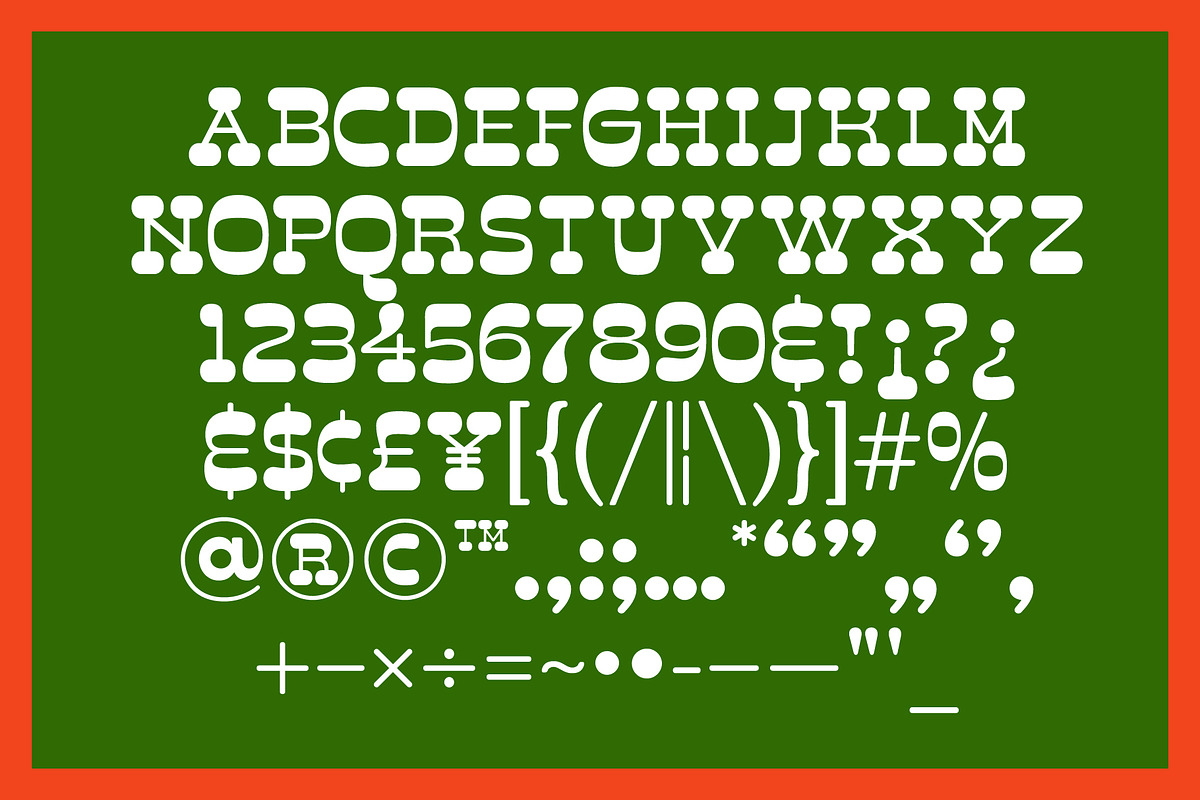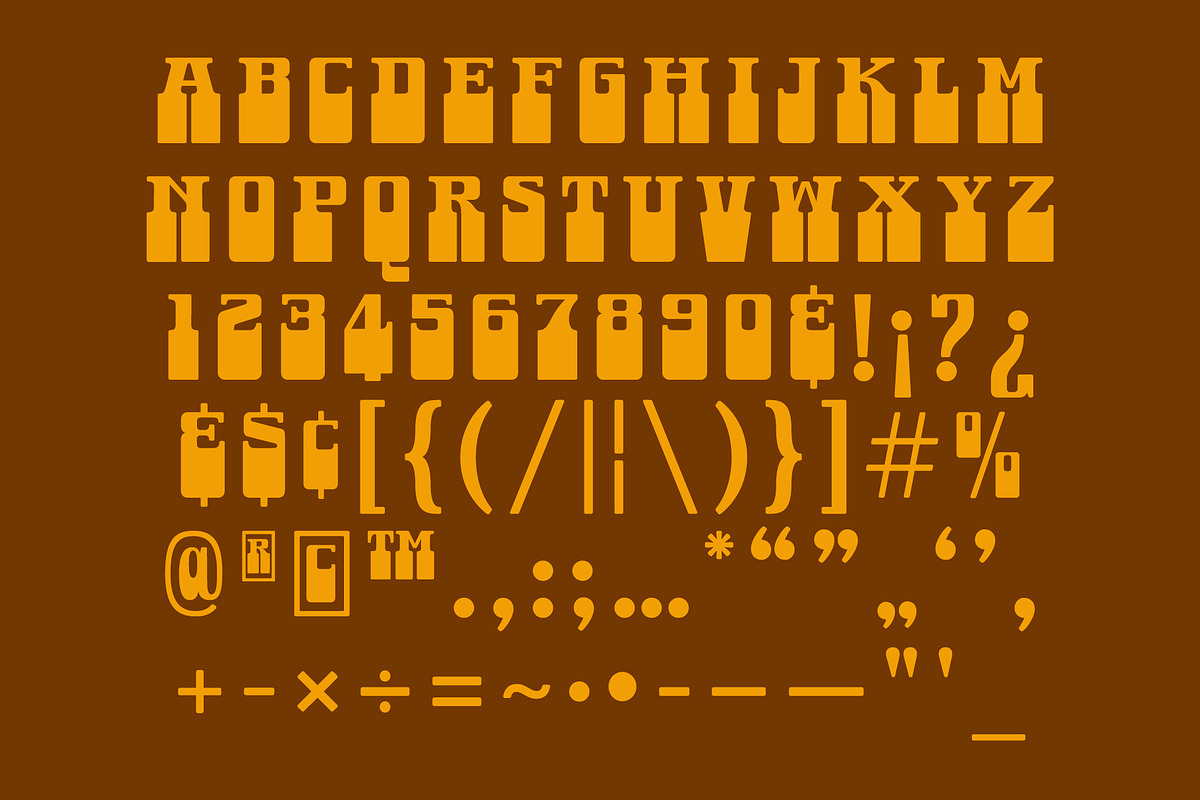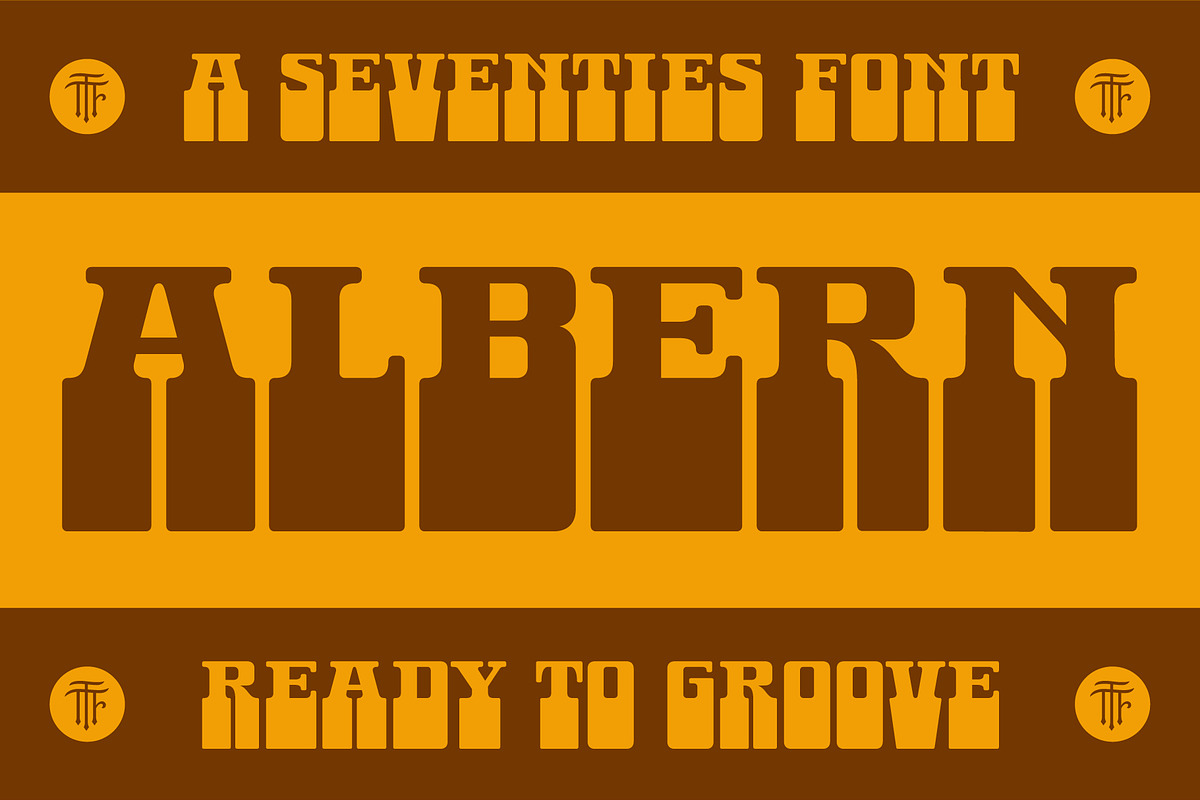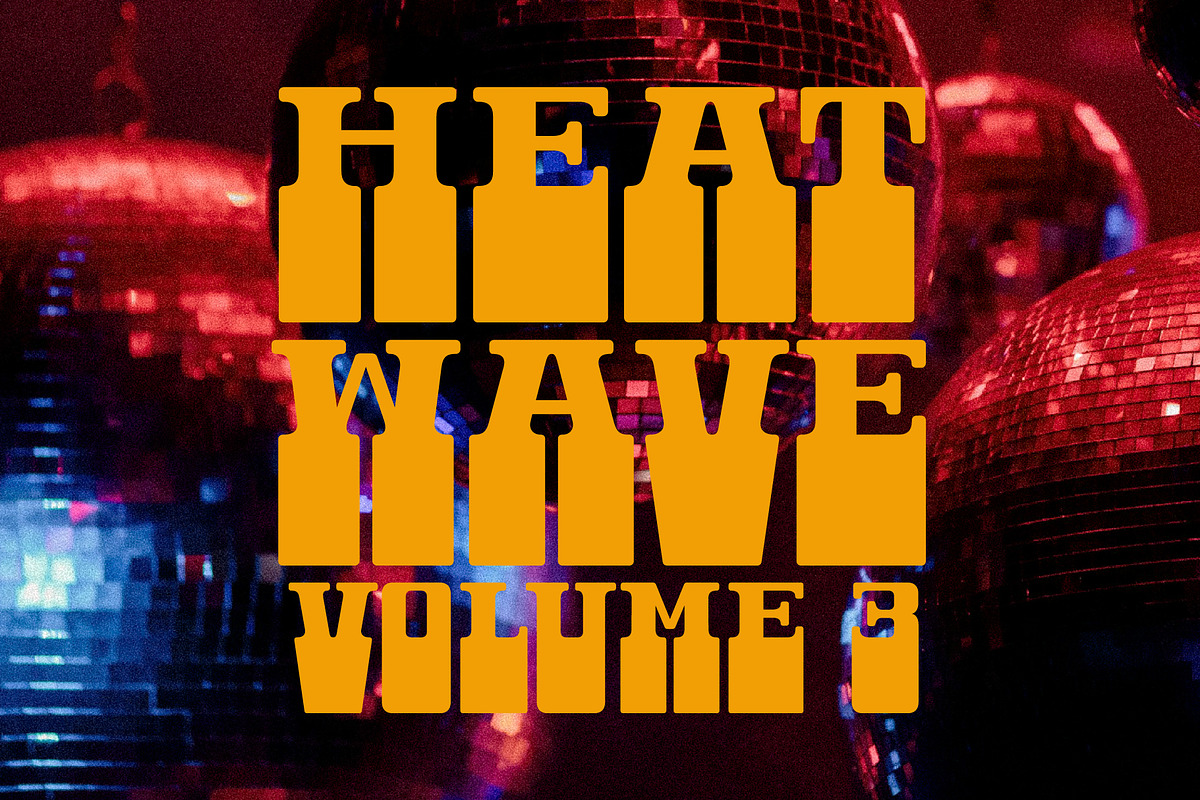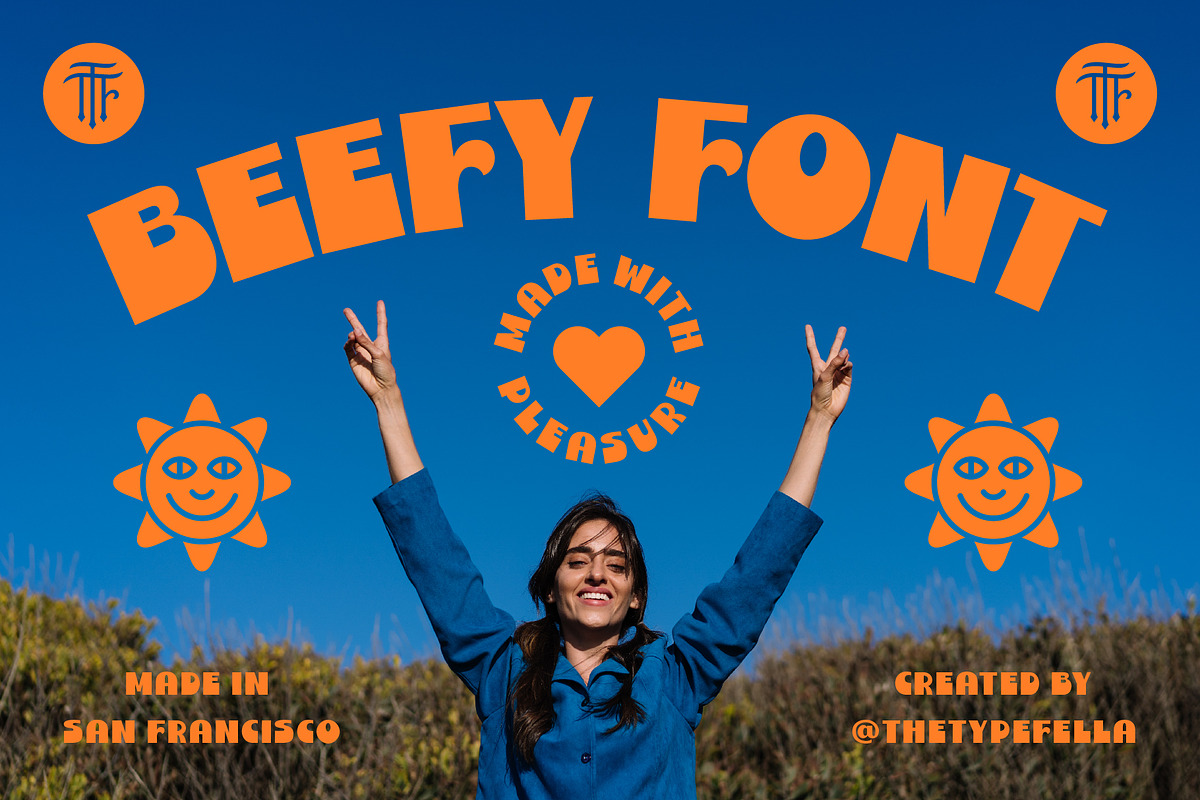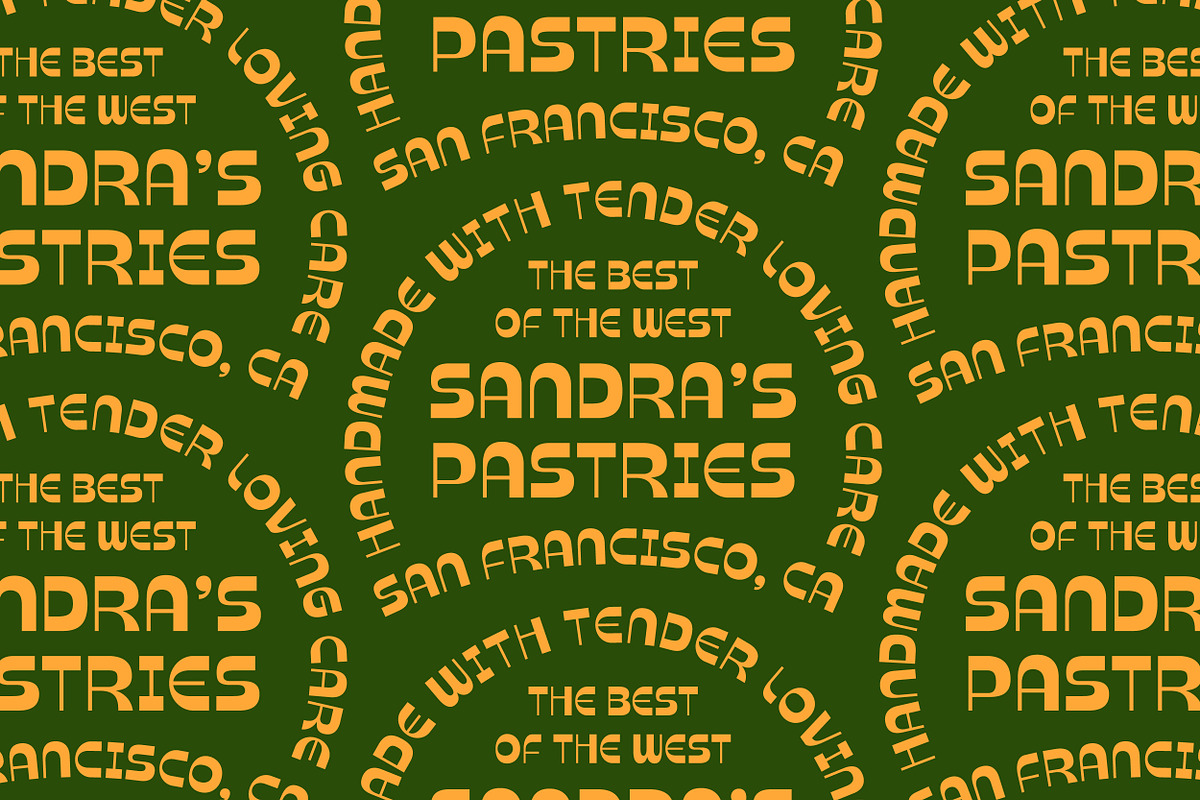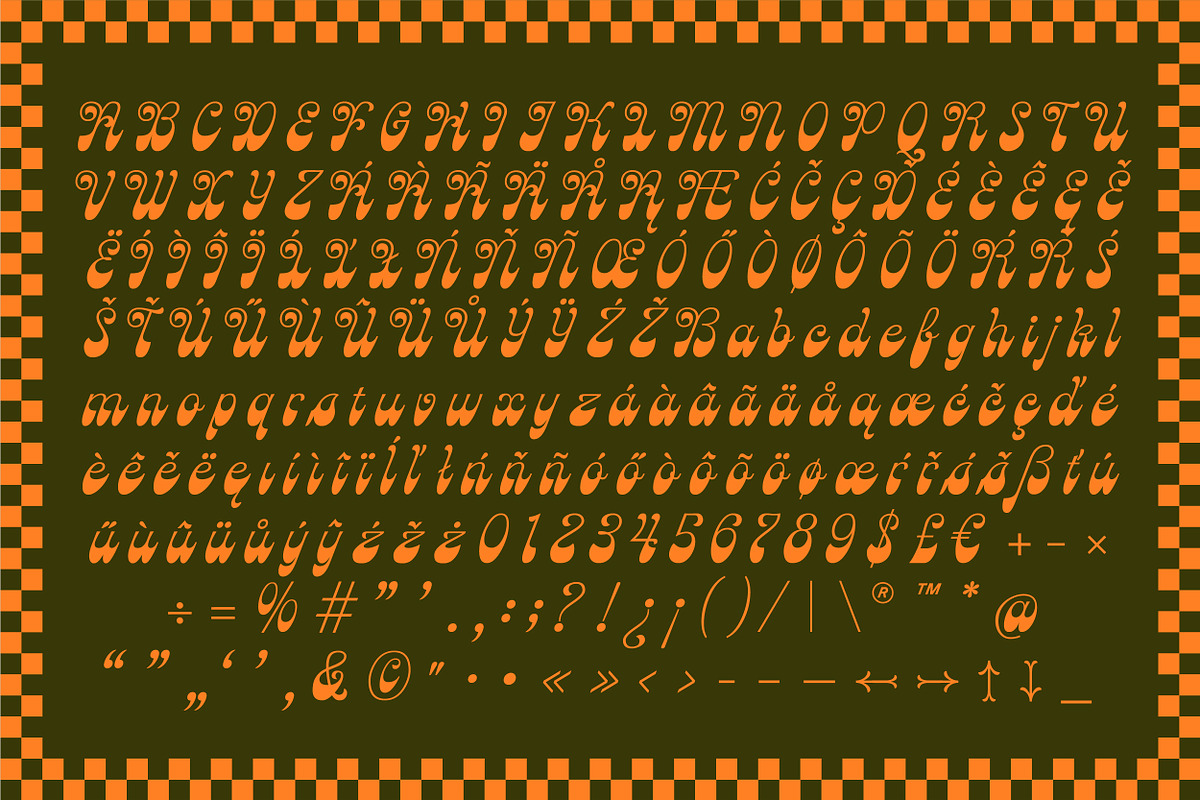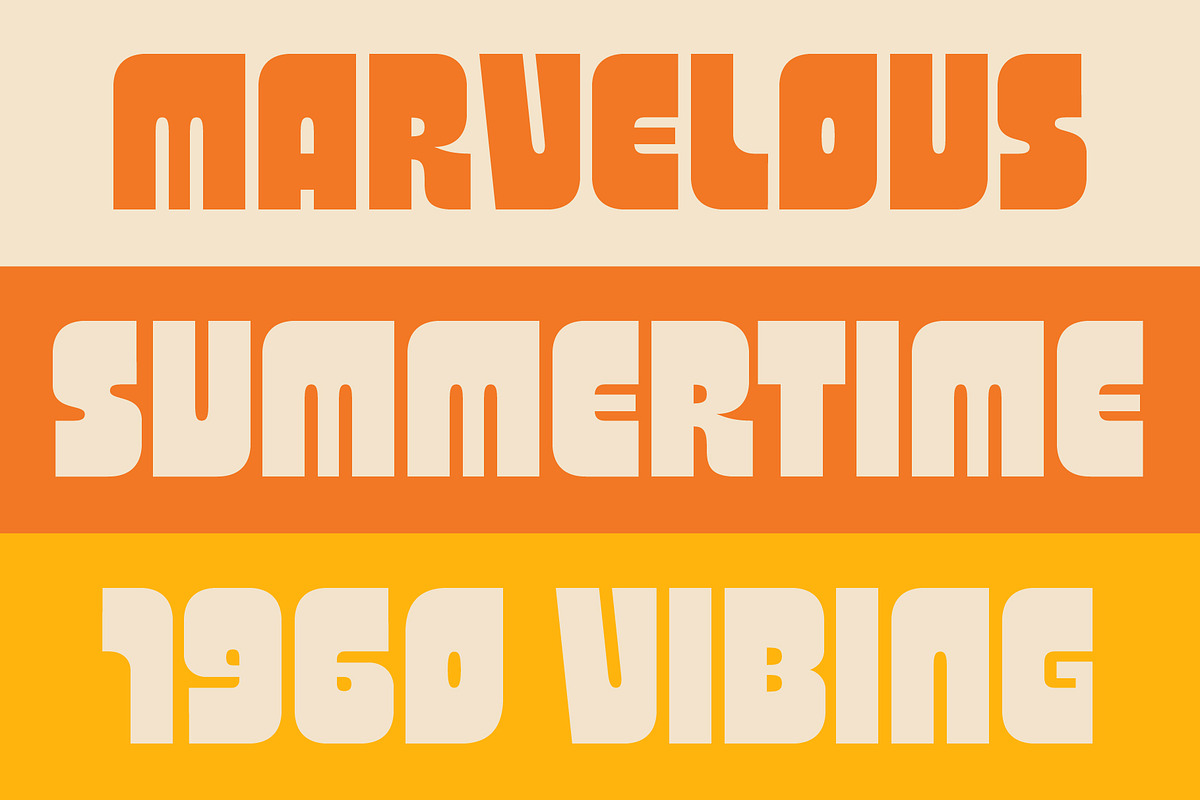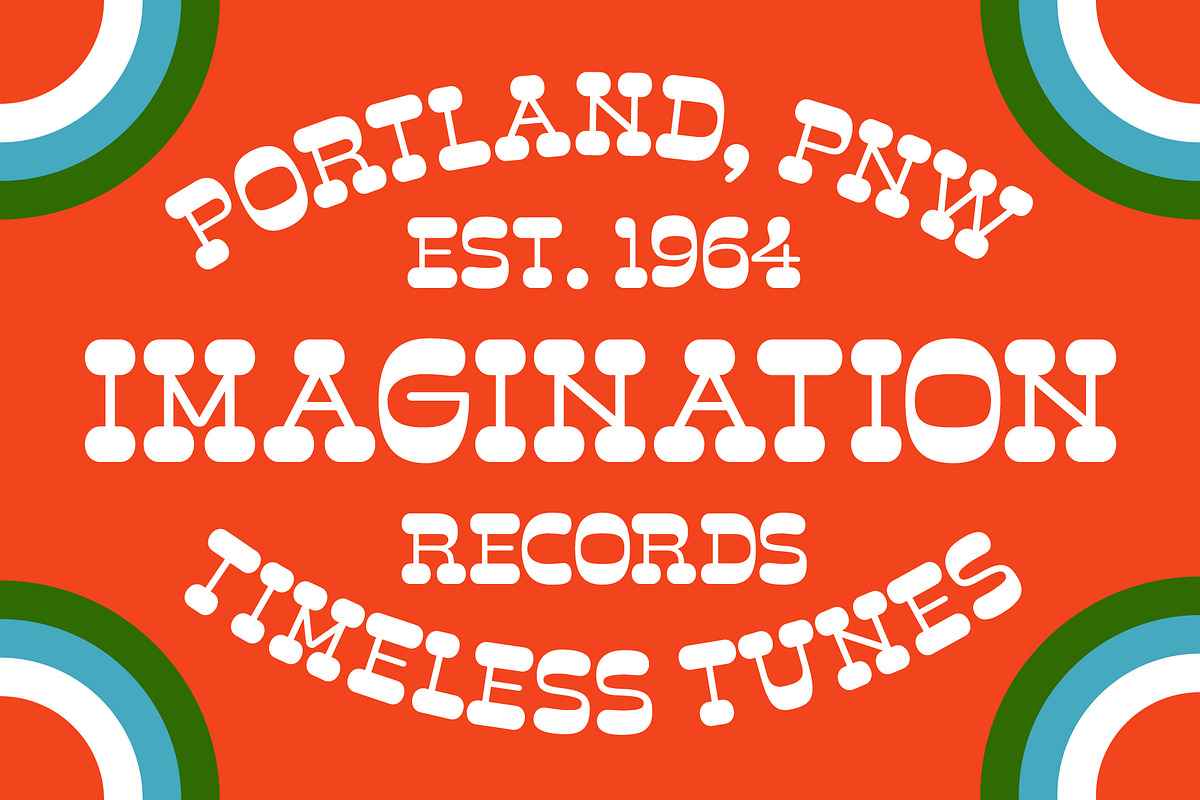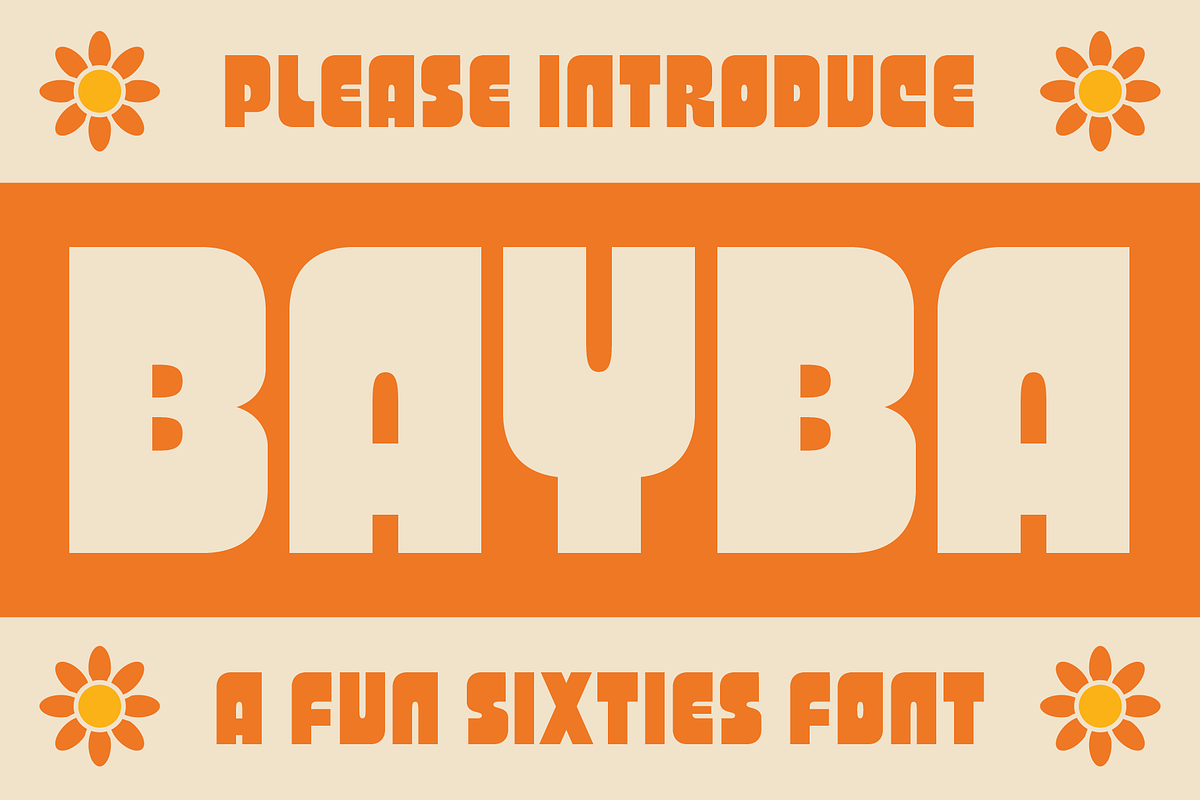
Retro Font Bundle
Introducing The Type Fella Retro Font Collection. This bundle features tastefully designed fonts inspired by the 60s and 70s, including Beefy, Albern, Undertone (a 3-weight script typeface), Plumpi, Lubby, and Bayba. Each font was meticulously crafted with love and care, drawing inspiration from my favorite eras.